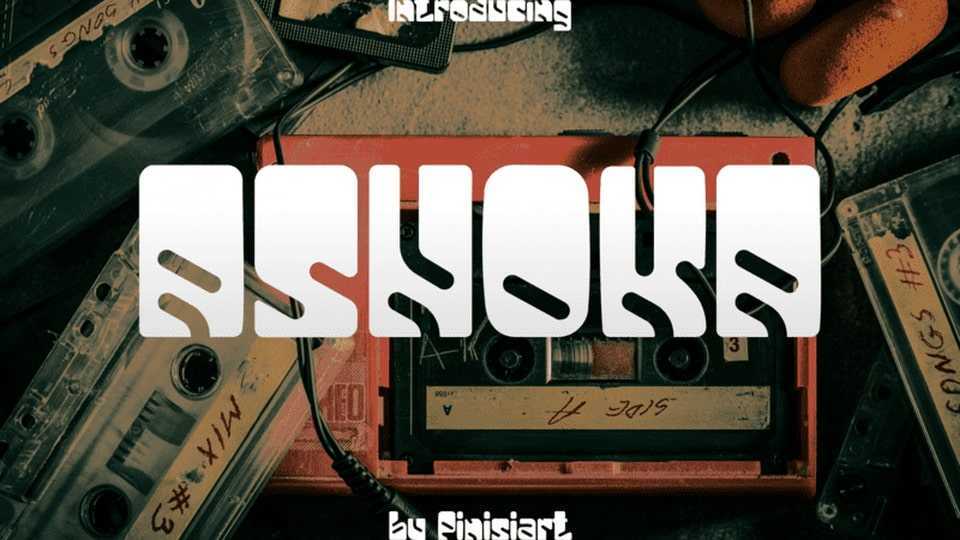
Download Ashoka font, a classic display typeface. With the unique classic 80’s vibe shape Ashoka font will make all head-turning for a second and convincing look to what it’s written.